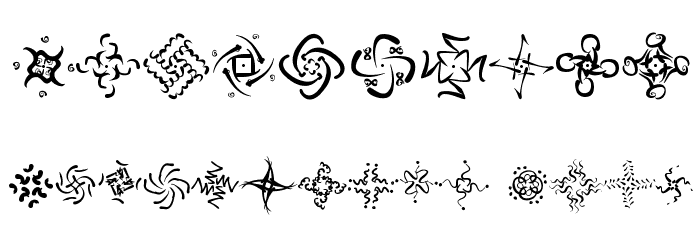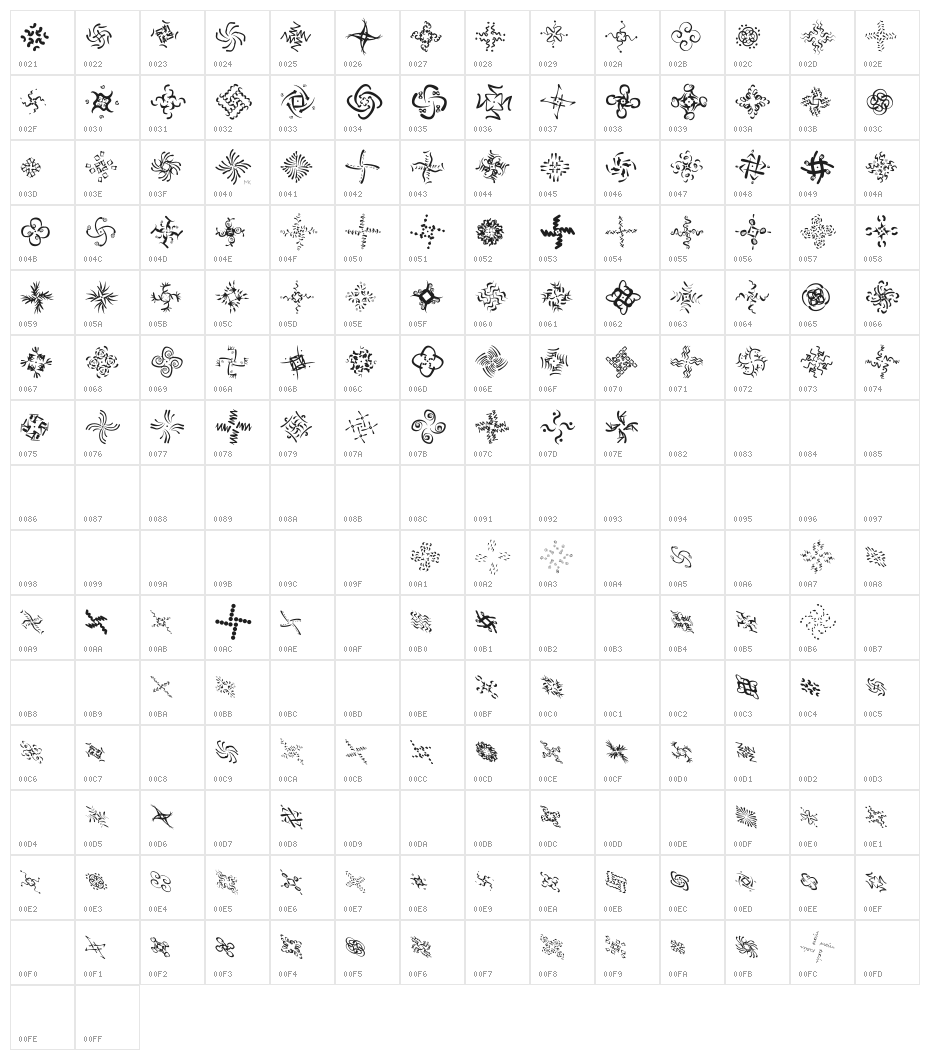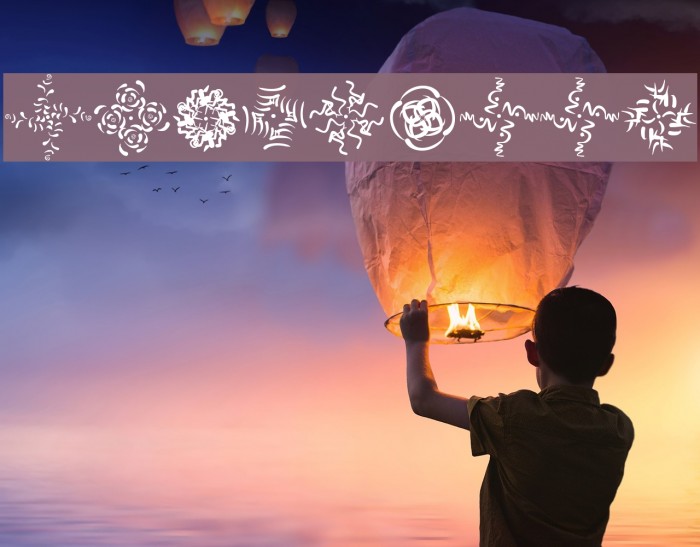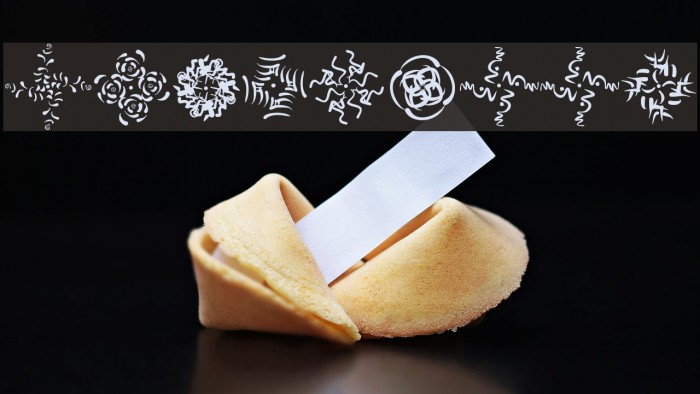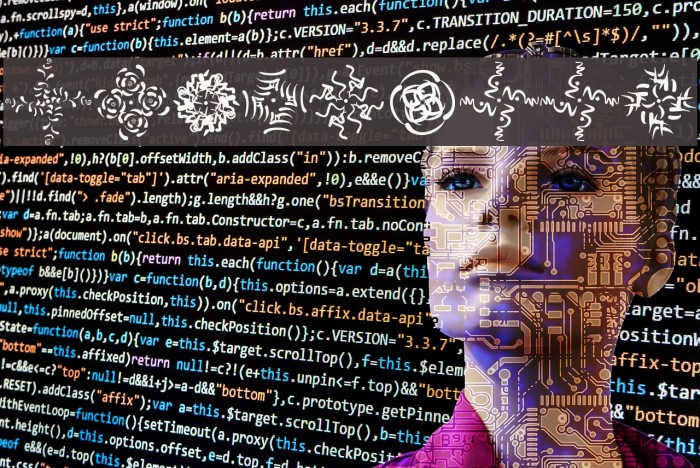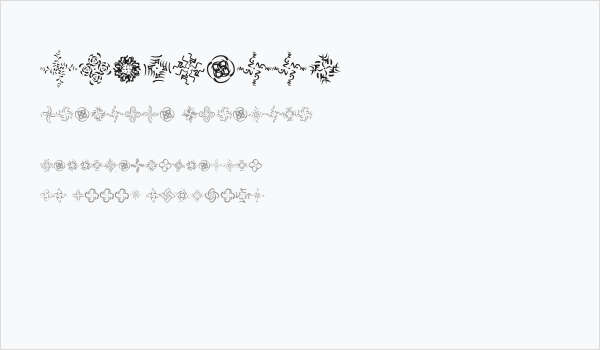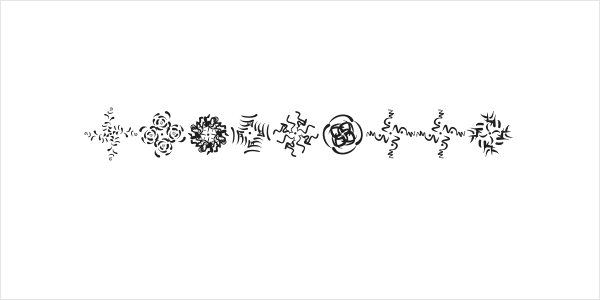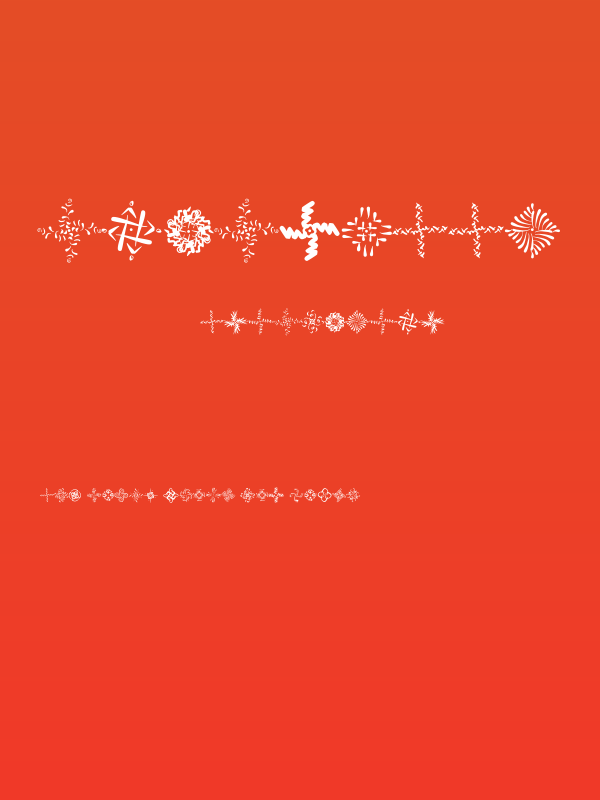
OhRosetta Font
OhRosetta Description
Highly decorative and abstract ornamental glyphs, each character formed from intricate swirls, geometric shapes, and flourishes, creating a complex and artistic visual effect. The style is non-alphabetic and purely ornamental, with each symbol unique and visually dense.
| Overall Style | Decorative, Ornamental, Abstract |
| Use Case | Decorative borders, embellishments, graphic design accents |
| Proposed Projects | Borders, dividers, decorative frames, invitations, certificates, artistic projects, digital scrapbooking. |